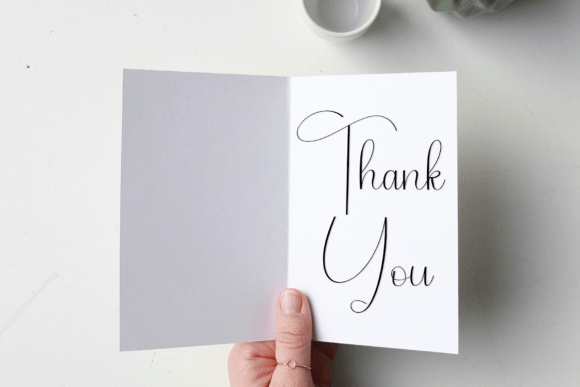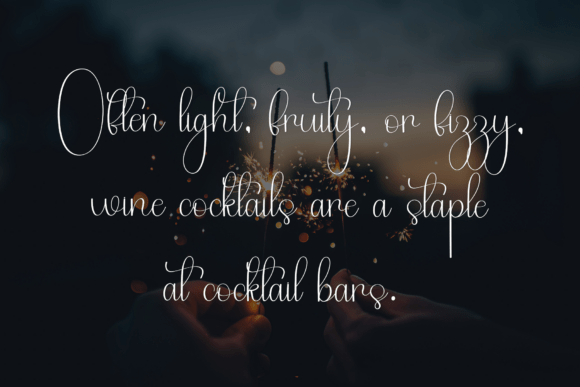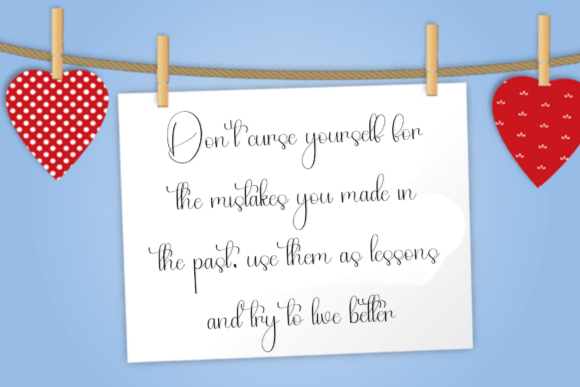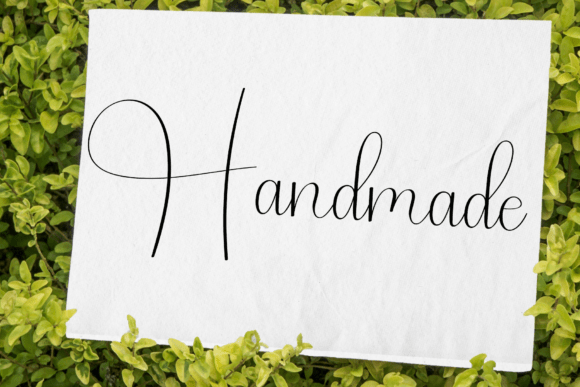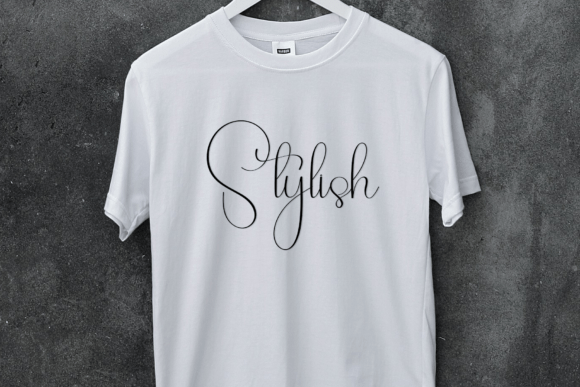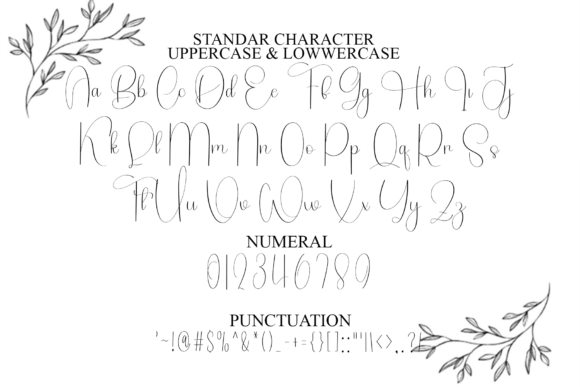
Easter Day Font: Add a Touch of Whimsy to Your Holiday Designs
Easter Day is just around the corner, and with it comes the opportunity to create festive and merry designs that capture the spirit of the holiday season. One of the most effective ways to add a touch of enchantment to your designs is by using a unique and captivating font. This is where the Easter Day Font comes in – a decorative typeface that is specifically designed to bring a cheerful and nostalgic ambiance to your words.
What Makes Easter Day Font So Special?
The Easter Day Font is a one-of-a-kind typeface that is packed with decorative elements and whimsical flair. Its unique design makes it perfect for greeting cards, gift tags, and holiday-themed projects. With this font, you can add a touch of magic to your typography and make your designs stand out from the crowd.
One of the standout features of the Easter Day Font is its PUA (Private Use Area) encoding. This means that you can access all of the amazing glyphs and ligatures with ease, giving you complete creative control over your designs. Whether you’re a designer, crafter, or DIY enthusiast, this font is sure to become a favorite in your collection.
The Easter Day Font is specifically designed with holiday-themed projects in mind. Its festive and merry design makes it perfect for creating:
- Easter greeting cards and invitations
- Gift tags and gift wrapping
- Holiday-themed party decorations and banners
- Blog and website headers and graphics
With the Easter Day Font, you can add a touch of whimsy and fun to your holiday designs and make them truly unforgettable.
Why Choose Easter Day Font?
So why choose the Easter Day Font over other typefaces? Here are just a few reasons:
- Unique Design: The Easter Day Font has a one-of-a-kind design that is sure to make your designs stand out from the crowd.
- PUA Encoding: With PUA encoding, you can access all of the amazing glyphs and ligatures with ease, giving you complete creative control over your designs.
- Festive and Merry: The Easter Day Font is specifically designed to capture the spirit of the holiday season, making it perfect for Easter and other spring-themed designs.
Tips for Using Easter Day Font
Here are a few tips for using the Easter Day Font in your designs:
- Experiment with Different Sizes: The Easter Day Font looks great in a variety of sizes, from small and delicate to large and bold.
- Pair with Other Fonts: Try pairing the Easter Day Font with other fonts to create a unique and eye-catching design.
- Use with Bright Colors: The Easter Day Font looks great with bright and bold colors, making it perfect for creating festive and merry designs.